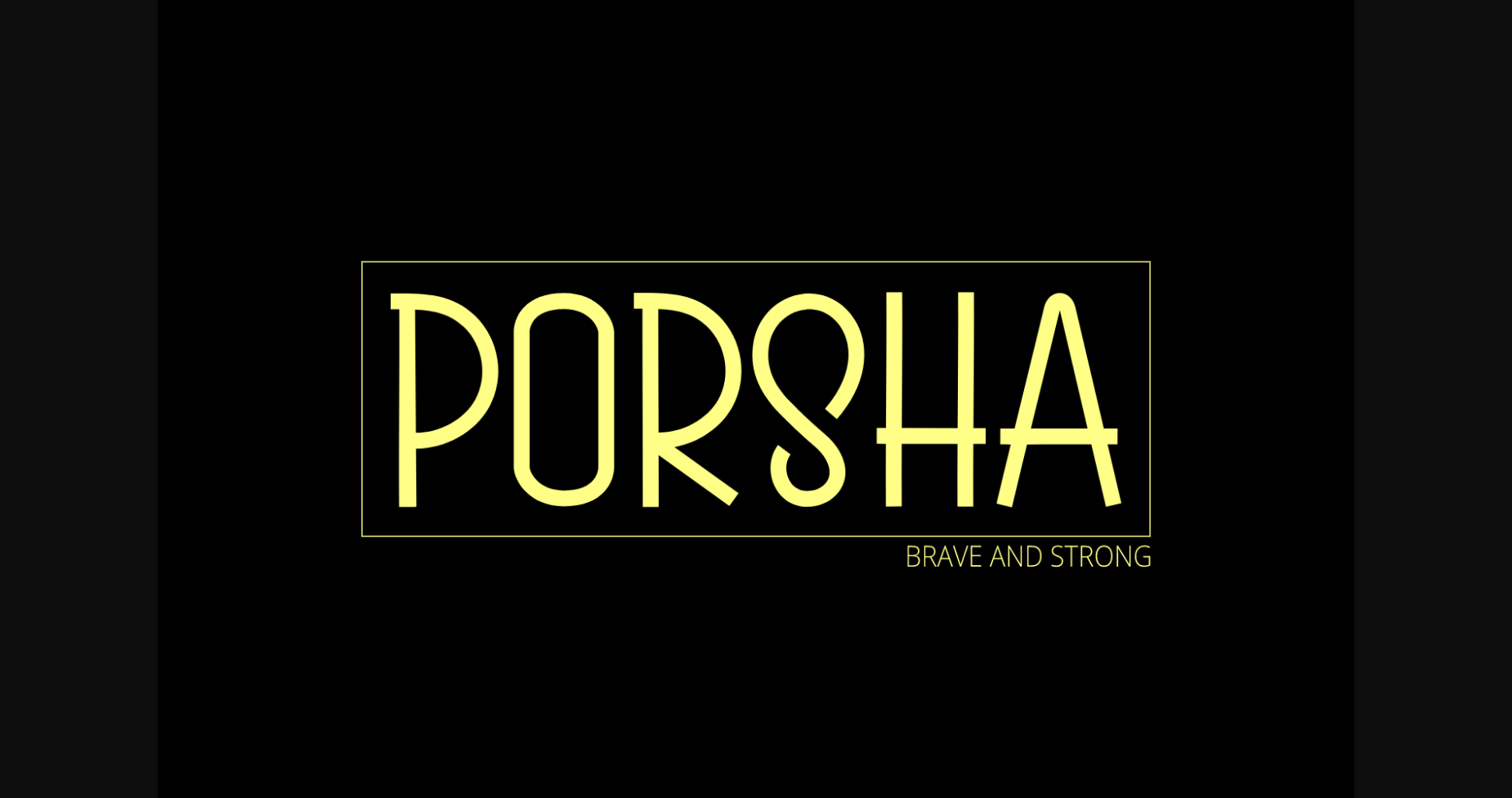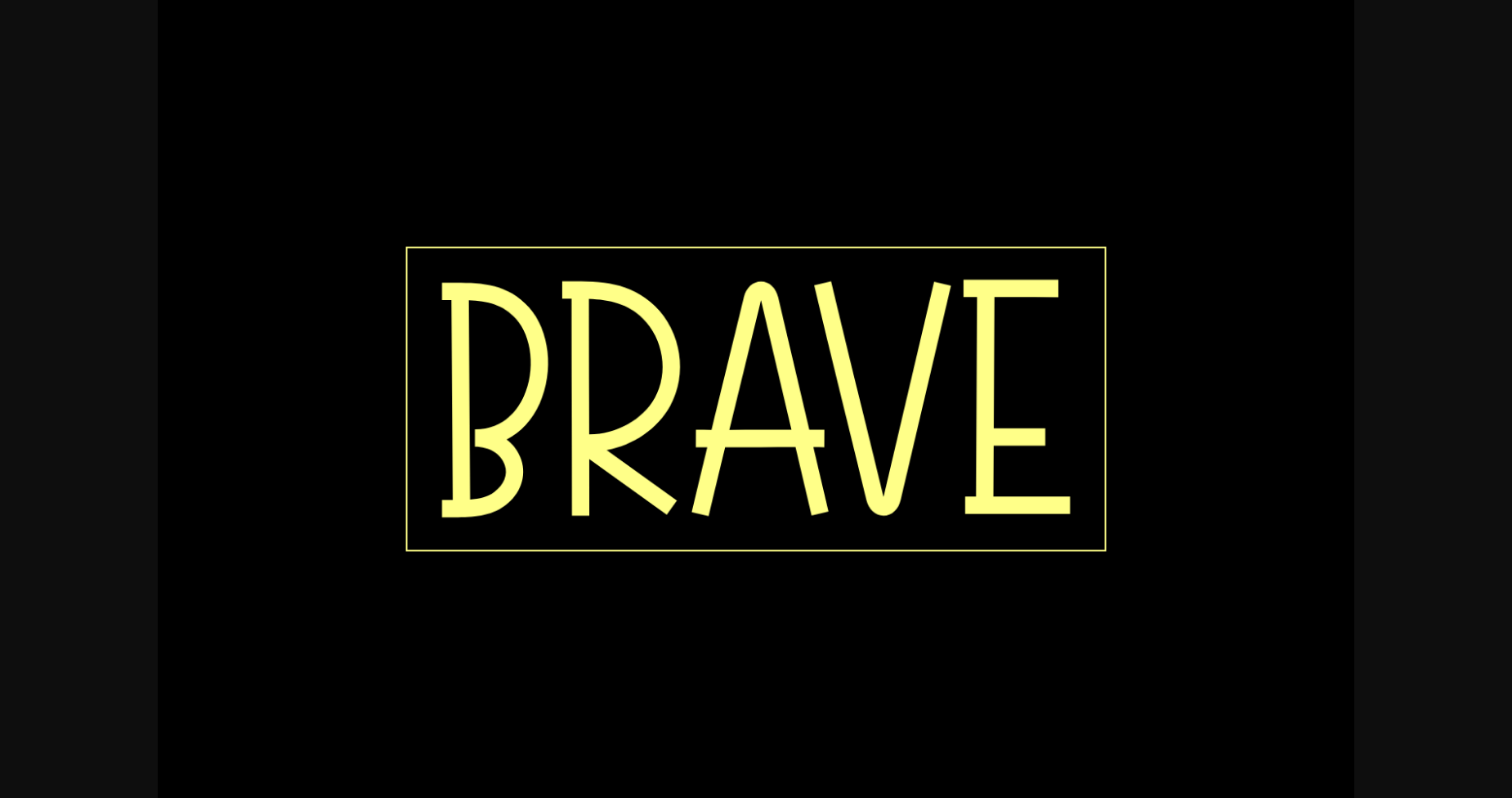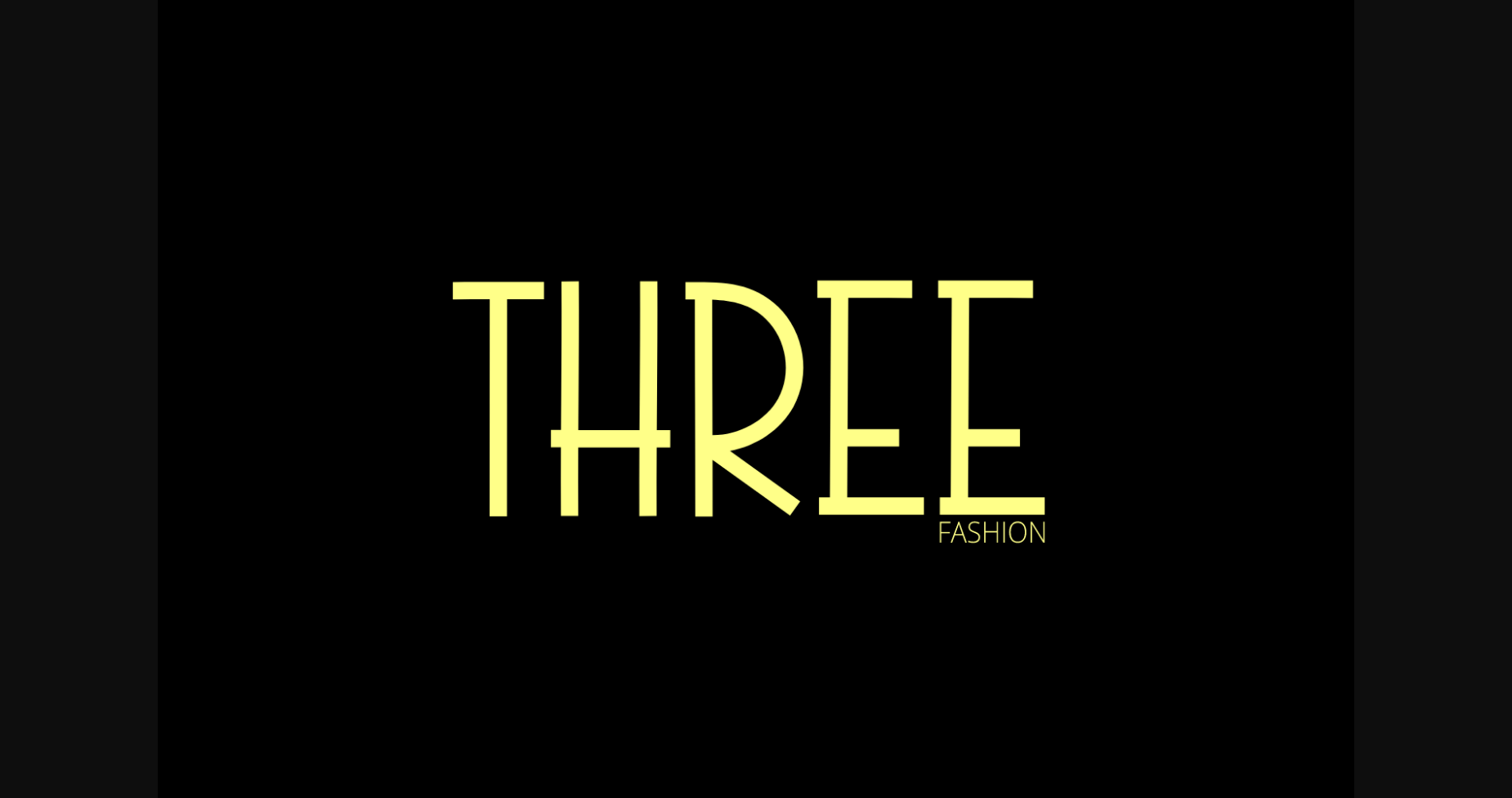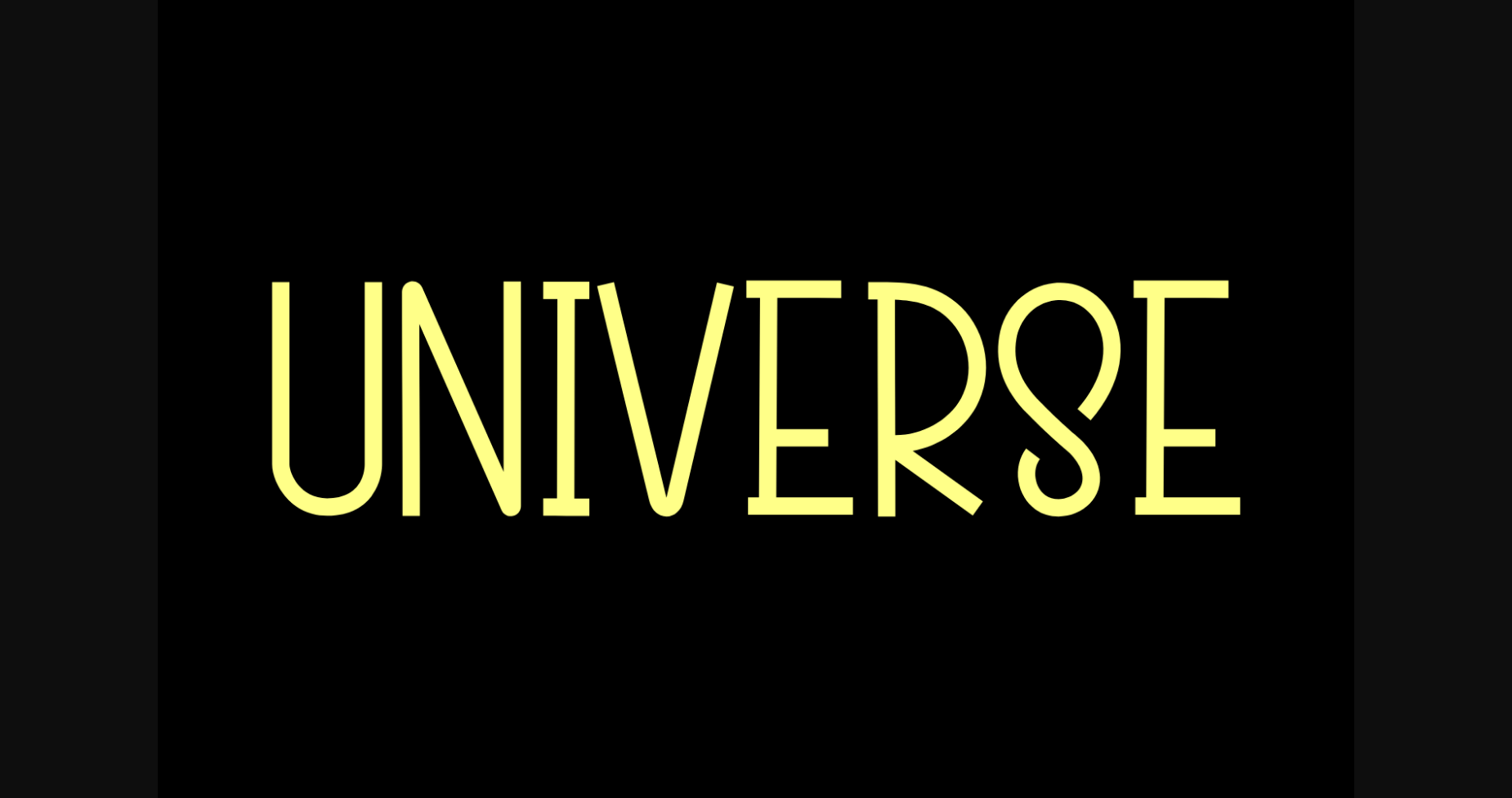
Porsha Font
About Porsha Font
Porsha is a simple and adaptable sans serif font. Suitable to a wide variety of designs due to its cool style, this font has the potential to become your favorite go-to font, no matter the occasion!